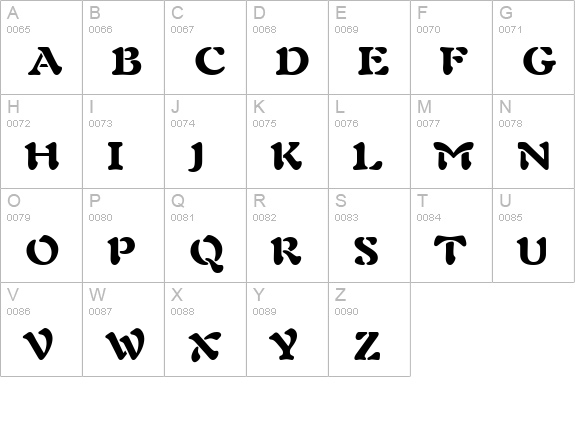
Palette Black SSi Black is a maximum-weight, dramatic variant in the Palette typeface family \xE2\x80\x94 well suited to maximum-impact headlines, posters, and packaging.
Introducing the exquisite and sophisticated Palette Black SSi Black font! This stunning typeface is a true epitome of elegance and style. With its sleek and modern design, it effortlessly captures attention and adds a touch of distinction to any project. The Palette Black SSi Black font boasts a bold and commanding presence, making it perfect for headlines, logos, and branding materials. Its strong and confident strokes create a sense of power and authority, while its clean and refined lines showcase a level of professionalism that is unmatched. This remarkable font is not only visually captivating but also highly versatile. Its versatility allows it to be used across a wide range of design projects, including print materials, digital media, packaging, and more. Whether you're designing a magazine spread, a website, or a business card, the Palette Black SSi Black font will effortlessly elevate your project to new heights. One of the most incredible aspects of this font is that it is available for free download at FontsMarket.com. Yes, you read that right! You can experience the beauty and excellence of the Palette Black SSi Black font without spending a dime. FontsMarket.com offers a vast collection of high-quality fonts, and this gem is among the many treasures you can freely explore. So, why wait? Enhance your designs with the remarkable Palette Black SSi Black font. Download it now from FontsMarket.com and unleash your creativity like never before. Elevate your projects and leave a lasting impression with this exceptional font.